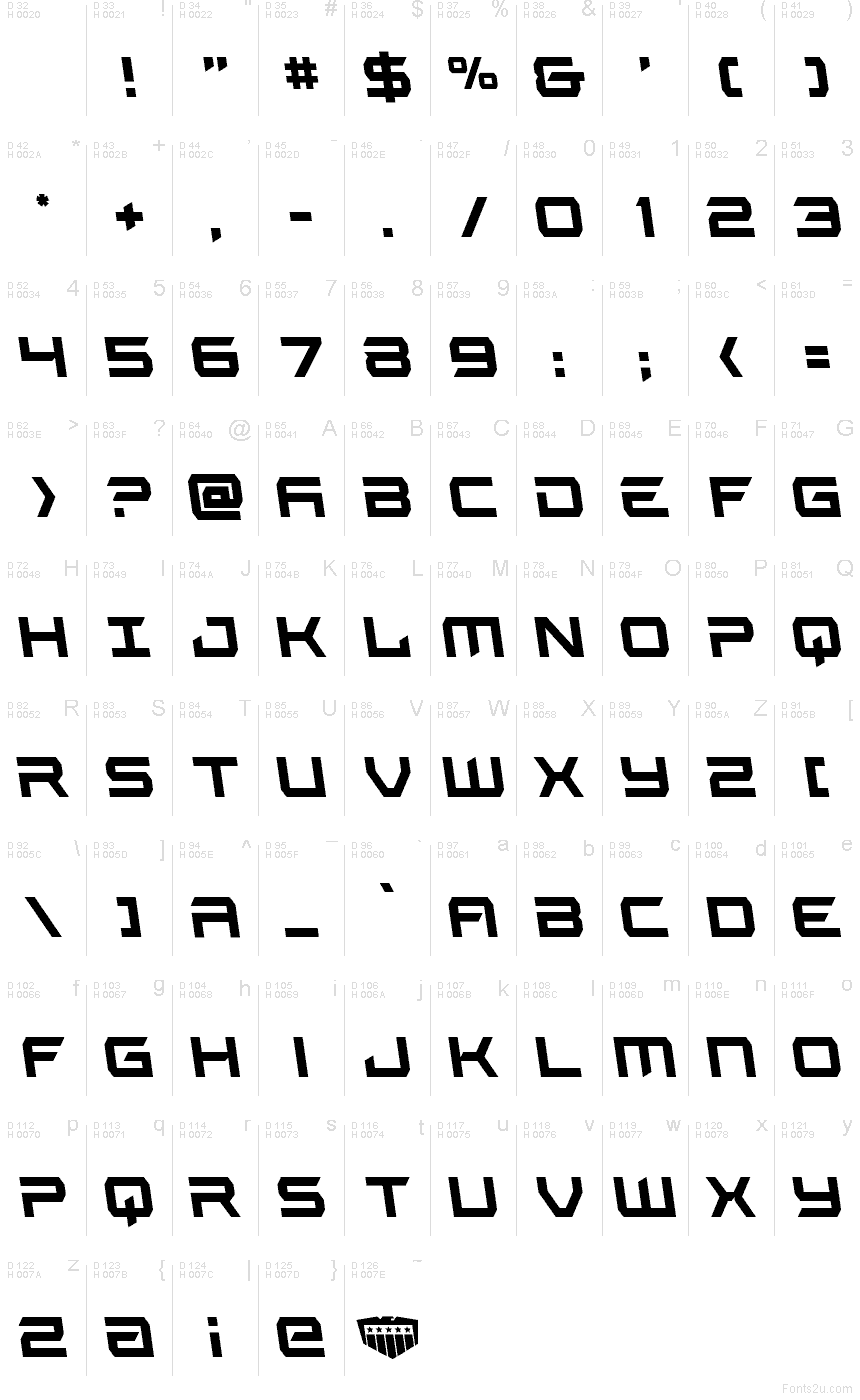
Jurist Dire Semi-Leftalic
Jurist Dire Semi-Leftalic font by Iconian Fonts is a free futuristic display typeface that twists expectations with its sharp, left-leaning stance. The angular cuts and slashed corners feel like warning labels on a starship hull, while the backward tilt gives every word a sense of recoil and tension. As part of the Jurist Dire family, it keeps a tight, compact rhythm that reads like a continuous tech signal rather than separate letters.
Using Jurist Dire Semi-Leftalic, text doesn’t just sit on the page—it looks like it’s resisting gravity, which works beautifully for esports branding, sci-fi posters, game titles, stream overlays, tech event flyers, and cyberpunk album covers. This free font holds up best in bold headline sizes where the skew and facets really show. For a clean hierarchy, pair it with a neutral geometric sans for body copy and let Jurist Dire handle the high-impact moments.